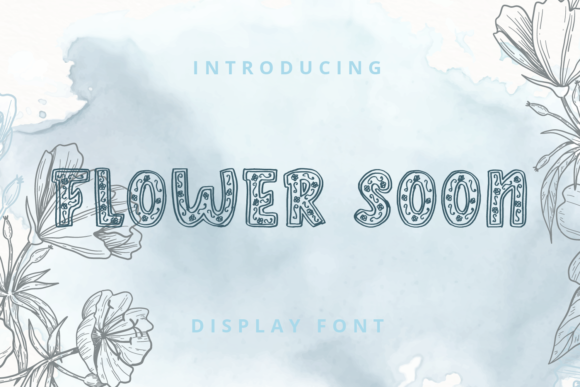
Step into the world of unparalleled charm with Flower Soon, where cuteness and creativity intertwine. This enchanting decorative font is more than just a collection of letters; it's a gateway to a world of imagination and delight.
With Flower Soon as your creative companion, prepare to make your designs blossom with a touch of whimsy and warmth. Its playful spirit is perfectly suited for crafting designs that will spark smiles and ignite laughter. Whether you're working on cartoon-inspired creations, children's games, or any project that yearns for an endearing touch, Flower Soon is the perfect font to bring your vision to life.
Crafted by the skilled hands of nicetrip7, each letter in the Flower Soon family exudes a playful innocence that is sure to captivate your audience. It's the ideal font for adding a dash of enchantment to posters, invitations, logos, and any other design that seeks to spread joy.
But don't just take our word for it. Dive into the world of Flower Soon and experience its magic firsthand. Let this charming font inspire you to create designs that will make hearts flutter and imaginations soar.